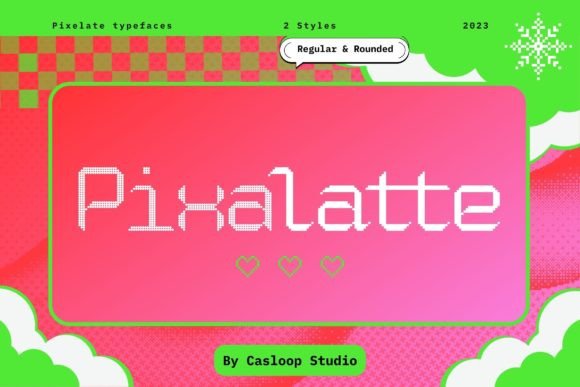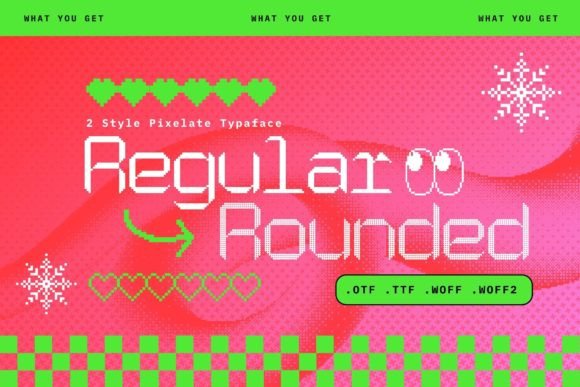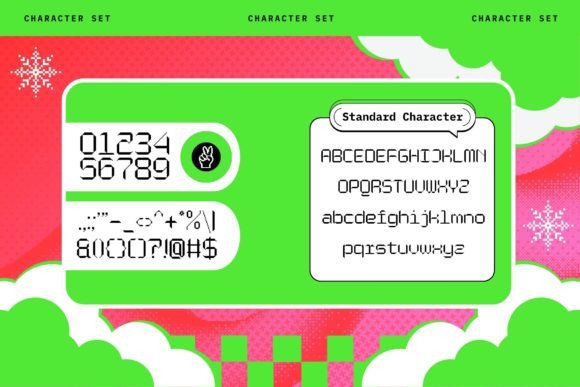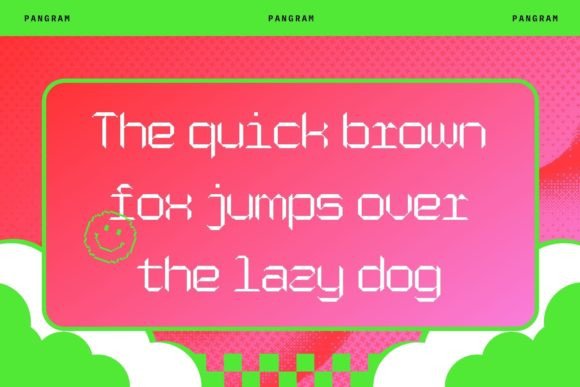
Pixalatte Font: Retro Pixel Aesthetic Font for Creative Y2K Designs!
About the Pixalatte Font
Unleash your creativity with Pixalatte Font, a versatile font perfect for a wide range of applications. Pixalatte Typeface – Dive into Y2K Nostalgia with Pixel Perfection
Unleash the power of pixelated aesthetics with Cas Pixalatte Typeface, a cutting-edge font inspired by the iconic Y2K era. This unique typeface is a masterful blend of typography, graphic design, and pixel art, crafted to infuse your projects with a distinct visual style that’s both nostalgic and contemporary.
Pixalatte’s bold, playful personality makes it ideal for headlines, short impactful statements, logos, and branding elements where a retro-futuristic vibe is desired. It works exceptionally well in posters, social media graphics, and packaging for products targeting a younger demographic interested in technology and pop culture. However, its low x-height and distinctive pixelated design make it unsuitable for body text or UI elements requiring high readability.
Consider pairing Pixalatte with a clean sans-serif like Open Sans for body copy or a more geometric sans-serif like Futura for a balanced, modern aesthetic. For a contrasting yet harmonious look, a delicate script font can add a touch of elegance. Avoid pairing it with overly ornate or overly thick serif fonts, as this might create visual clash.
The font’s core personality is energetic and nostalgic, projecting a sense of youthful optimism and technological innovation.